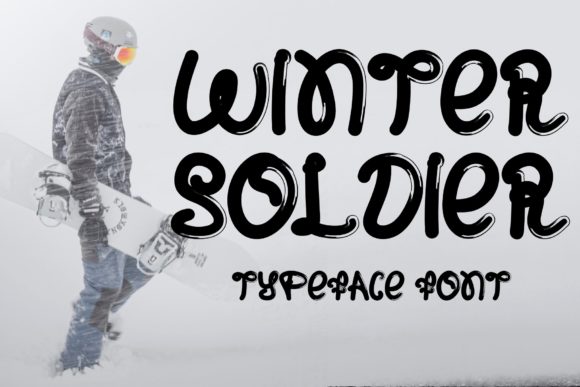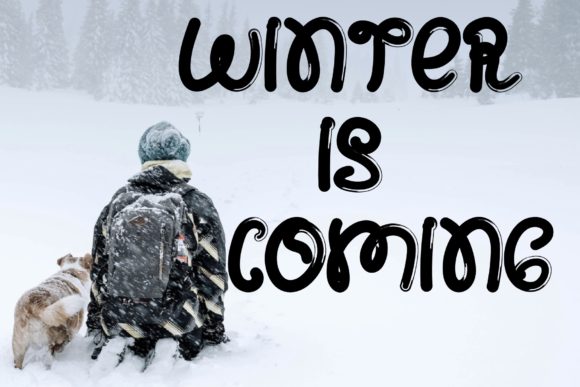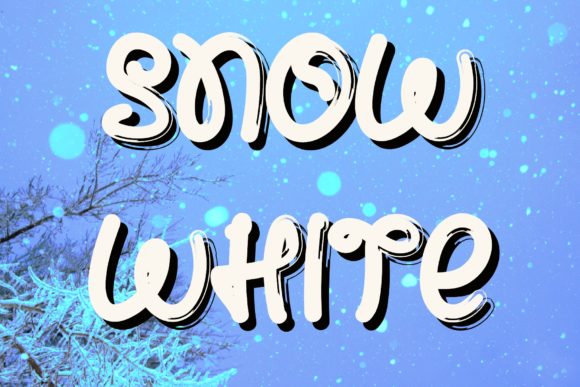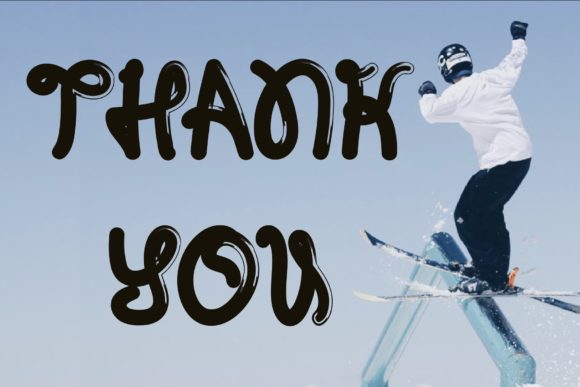
Winter Soldier
About Winter Soldier Font
Winter Soldier is a bold and authentic display font. Its natural and unique style makes it incredibly fitting to a large pool of designs. Fall in love with its original charm and add it to each of your projects.